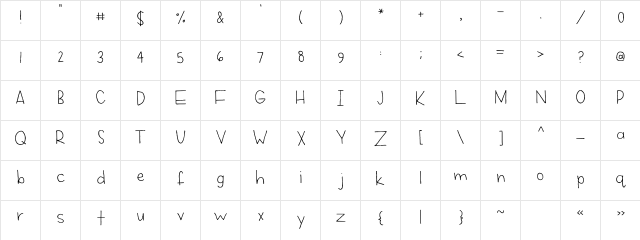
Emma Mannino Regular
Design Context for Emma Mannino Typeface
Emma Mannino is a composed and adaptable typeface that performs quietly and consistently across a wide range of design contexts.